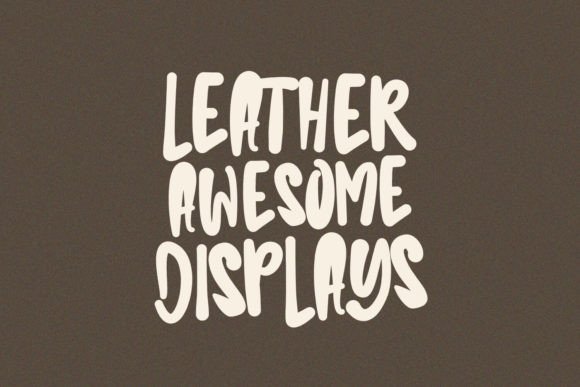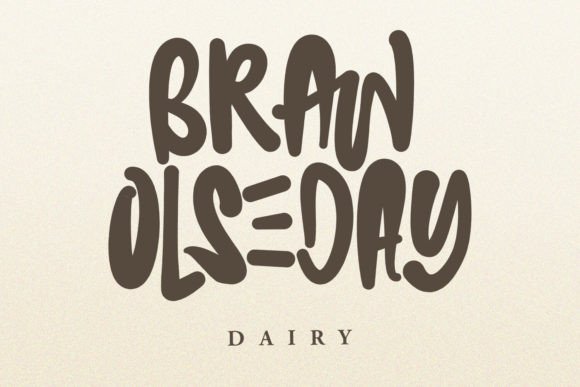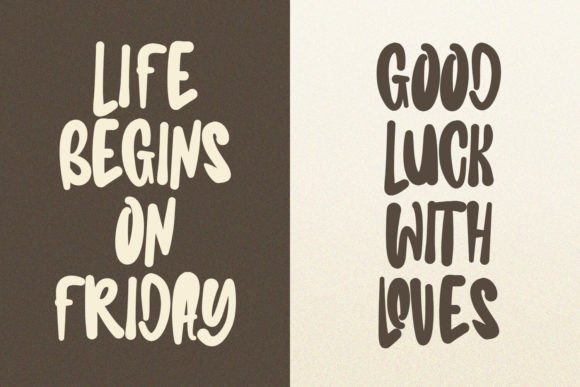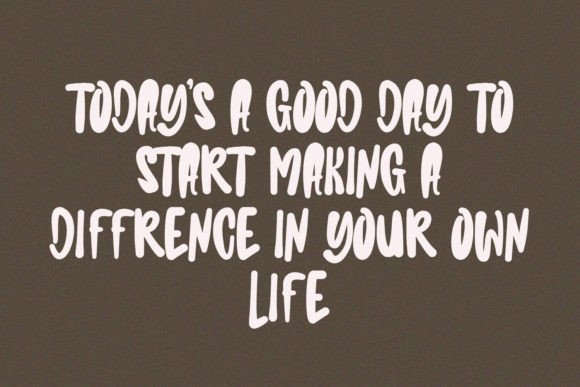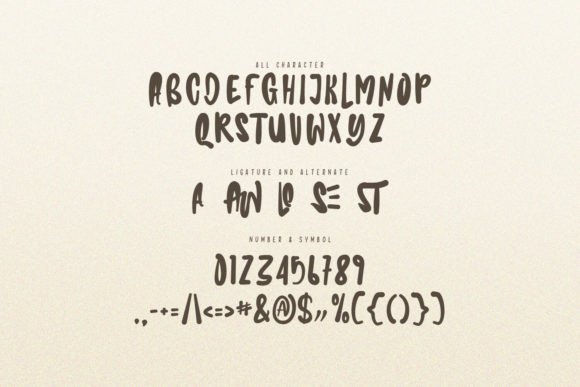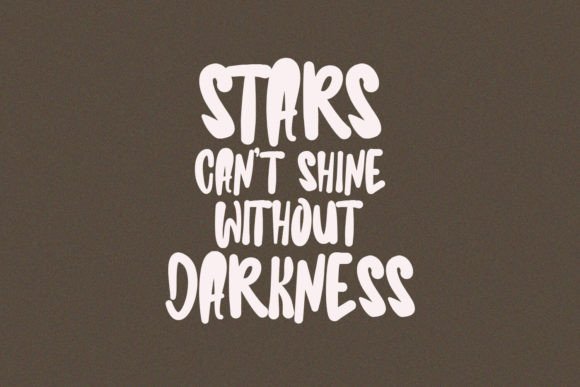
Awalose Font: The Sweet and Friendly Display Font for Your Creative Projects
Are you tired of using the same old fonts for your designs? Look no further! Awalose font is here to shake things up with its sweet and friendly display style. This unique font is perfect for designers and crafters who want to add a personal touch to their projects. In this article, we’ll dive into the world of Awalose font and explore its features, benefits, and uses.
What is Awalose Font?
Awalose font is a display font that boasts a natural and unique style. Its sweet and friendly appearance makes it incredibly fitting for a wide range of designs, from creative projects to branding and marketing materials. The font’s versatility is limitless, and the only limit is your imagination!
Features of Awalose Font
- Unique Style: Awalose font has a one-of-a-kind style that sets it apart from other fonts. Its natural and sweet appearance makes it perfect for designs that require a personal touch.
- Versatility: Awalose font is incredibly versatile and can be used for a wide range of designs, including creative projects, branding, and marketing materials.
- Easy to Read: Despite its unique style, Awalose font is easy to read, making it perfect for designs that require a clear and concise message.
- High-Quality: Awalose font is a high-quality font that is designed to deliver exceptional results. Its crisp and clean lines ensure that your designs look professional and polished.
Benefits of Using Awalose Font
So, why should you use Awalose font for your designs? Here are just a few benefits of using this amazing font:
- Adds Personality: Awalose font adds a personal touch to your designs, setting them apart from the rest.
- Increases Engagement: The sweet and friendly style of Awalose font increases engagement and makes your designs more appealing to your audience.
- Versatile: Awalose font can be used for a wide range of designs, making it a great addition to your font library.
Uses of Awalose Font
Awalose font is perfect for a wide range of designs, including:
- Creative Projects: Awalose font is perfect for creative projects, such as scrapbooking, card making, and other paper crafts.
- Branding and Marketing: Awalose font can be used for branding and marketing materials, such as logos, brochures, and business cards.
- Signage: Awalose font is great for signage, including store signs, event signs, and directional signs.
- Digital Designs: Awalose font can be used for digital designs, such as social media graphics, website headers, and email newsletters.
Tips for Using Awalose Font
Here are a few tips for using Awalose font:
- Use it Sparingly: Awalose font is a display font, so use it sparingly to make a big impact.
- Pair it with Other Fonts: Awalose font pairs well with other fonts, so experiment with different combinations to find the perfect look.
- Adjust the Size: Adjust the size of Awalose font to create visual interest and hierarchy in your designs.